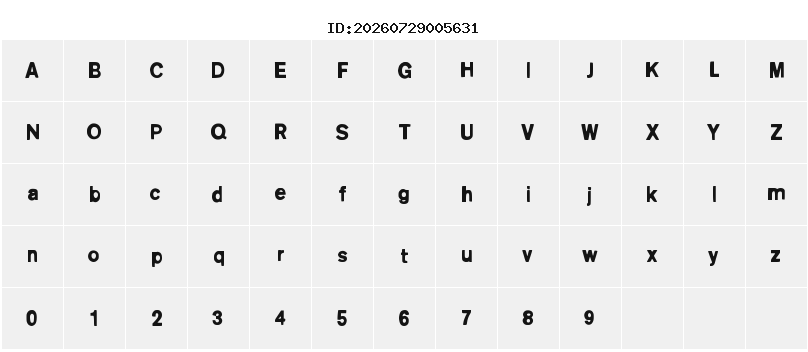
• Font Name: JumpParty
JumpParty.ttf is a modern, elegant sans-serif font designed for ultimate readability and visual harmony. Perfect for branding, headlines, web design, and print materials.